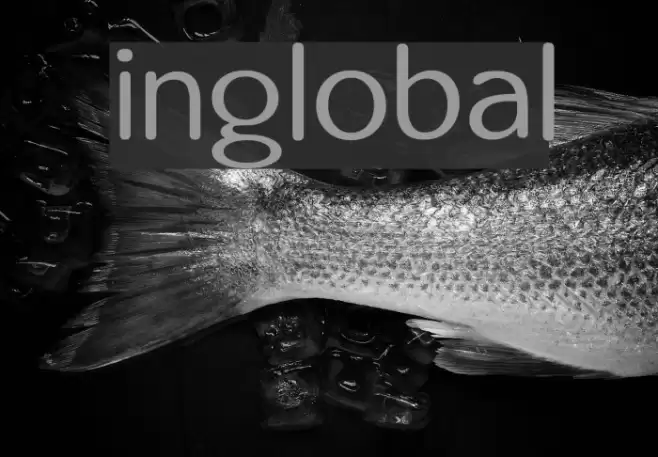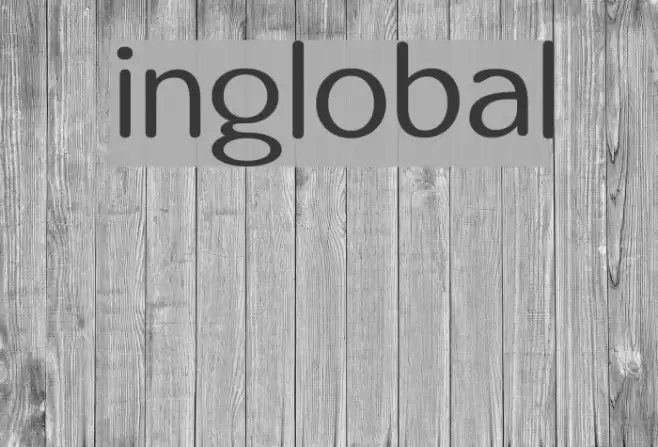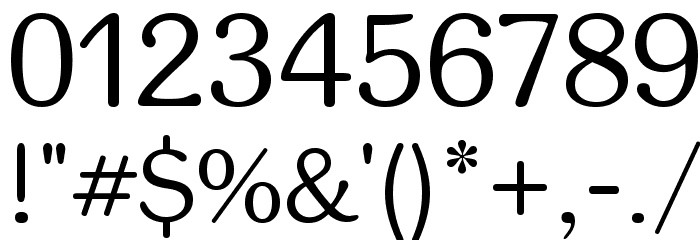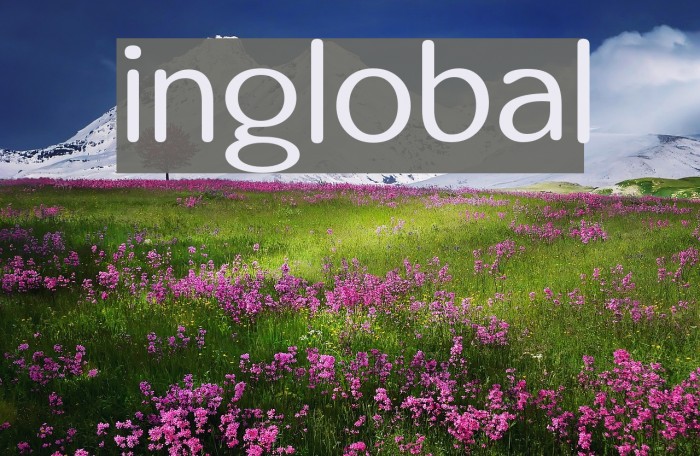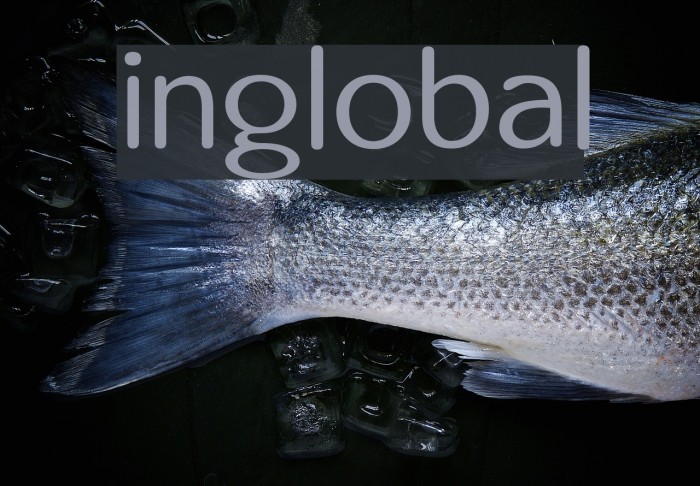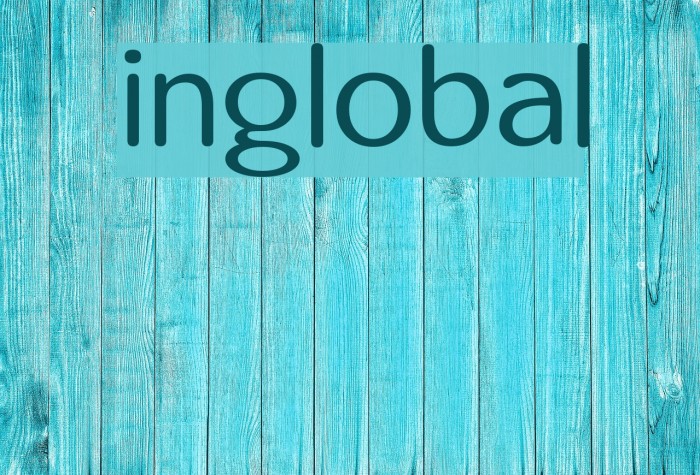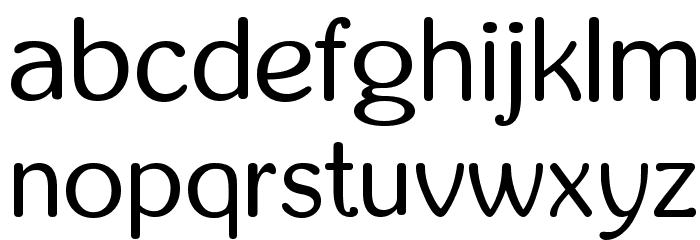
inglobal Font
inglobal Description
This font features a clean and modern sans-serif design, characterized by its rounded edges and uniform stroke width. The letters are well-proportioned, offering a harmonious balance between height and width, which enhances readability. The lowercase letters maintain a consistent x-height, while the uppercase letters are slightly taller, providing a clear distinction between the two. The numerals are straightforward and align well with the overall style, ensuring clarity in numerical data presentation. Special characters are designed with the same attention to detail, making them easily distinguishable. This font's simplicity and elegance make it versatile for various design applications.
A modern sans-serif font with rounded edges and uniform strokes, offering excellent readability from Uncategorized fonts.
- Proposed Projects: Ideal for digital interfaces, branding, advertising, and editorial design due to its clean and modern appearance.